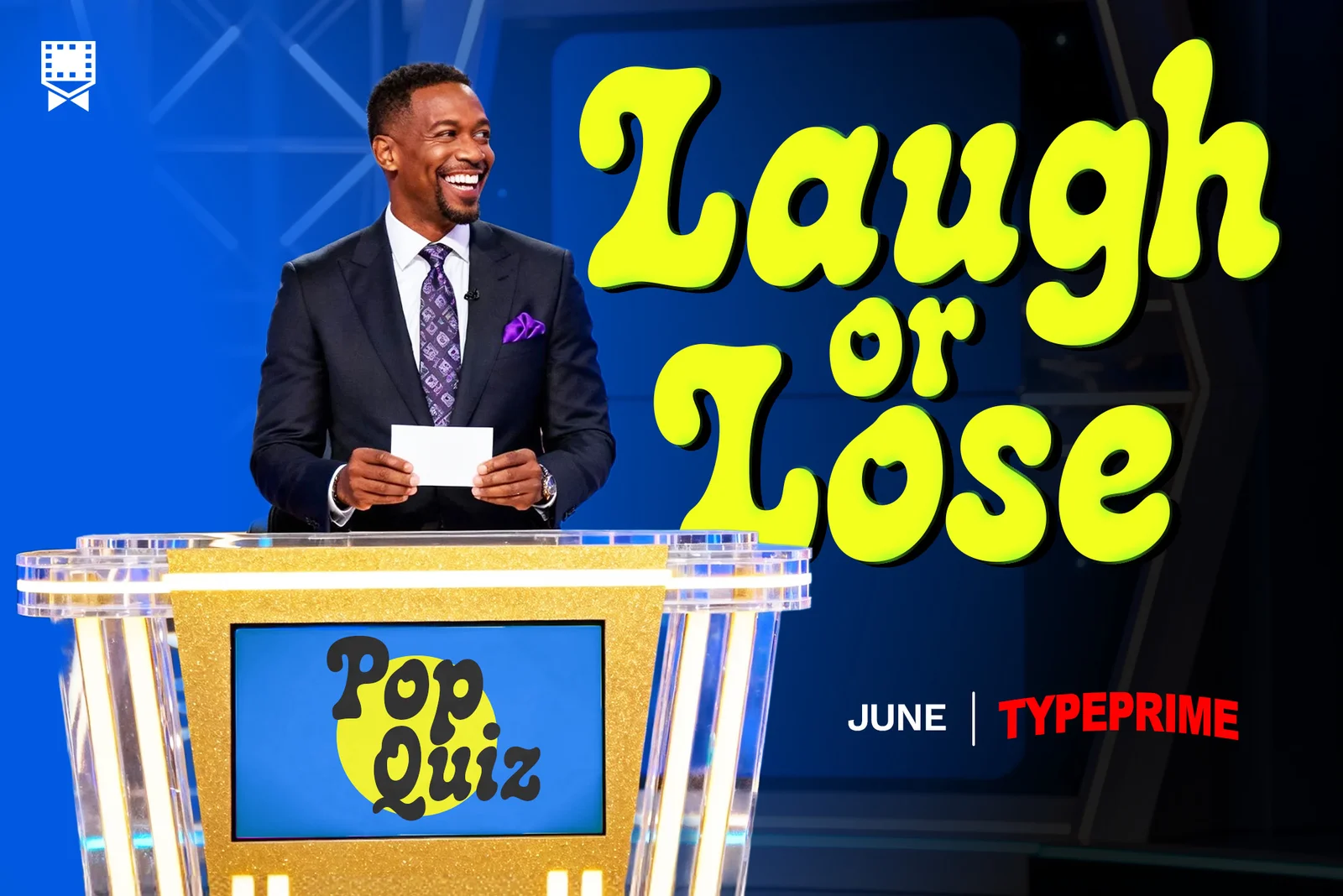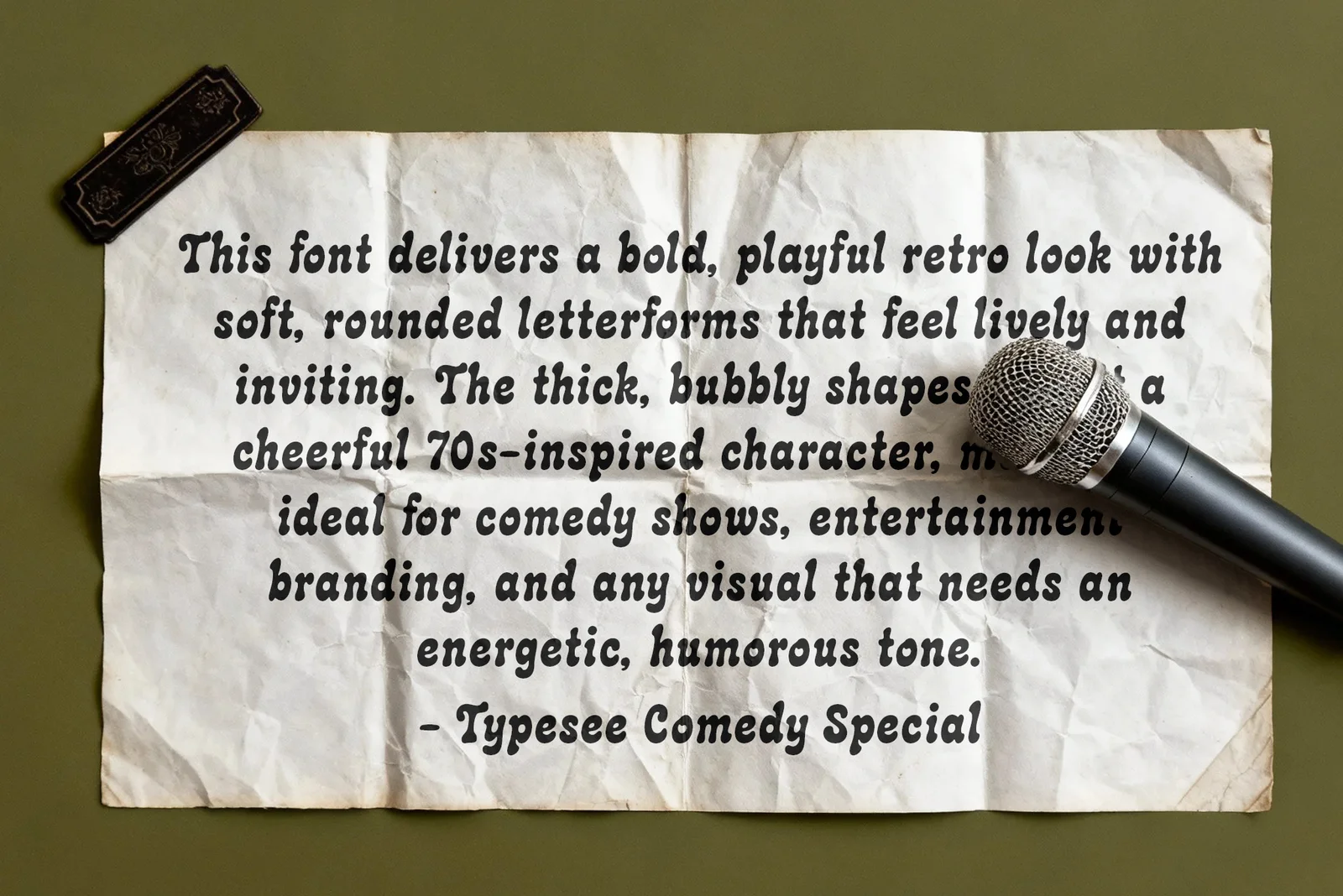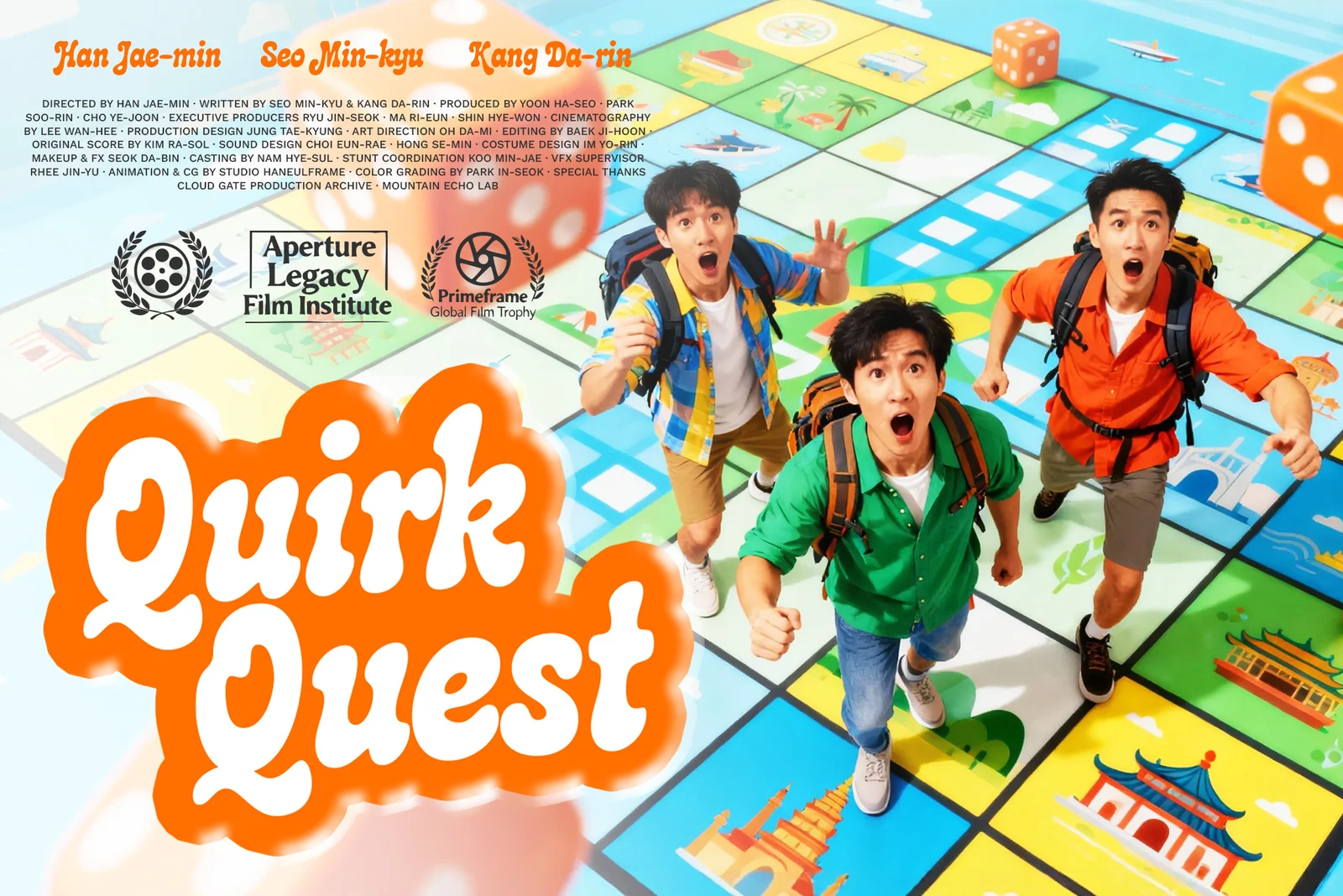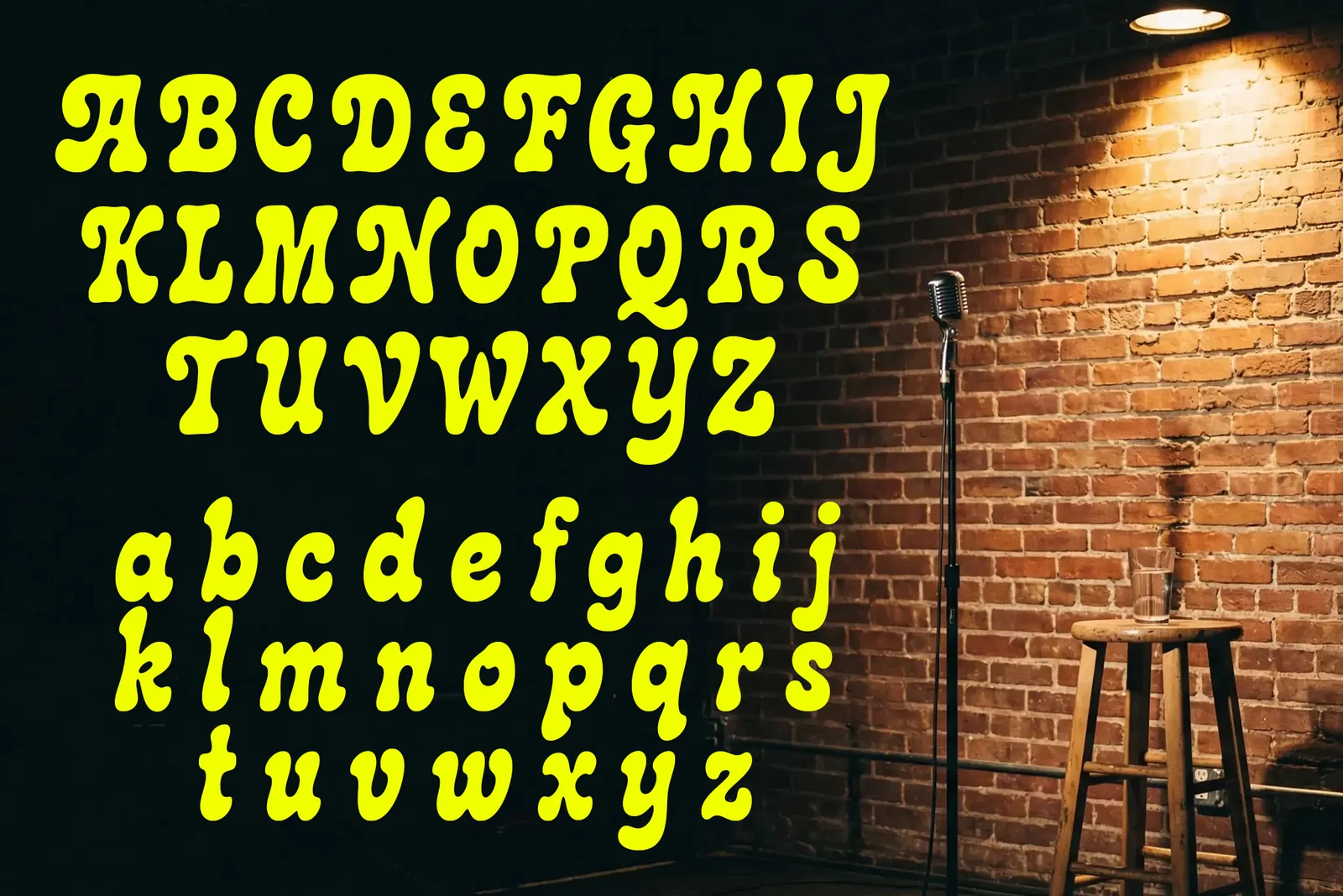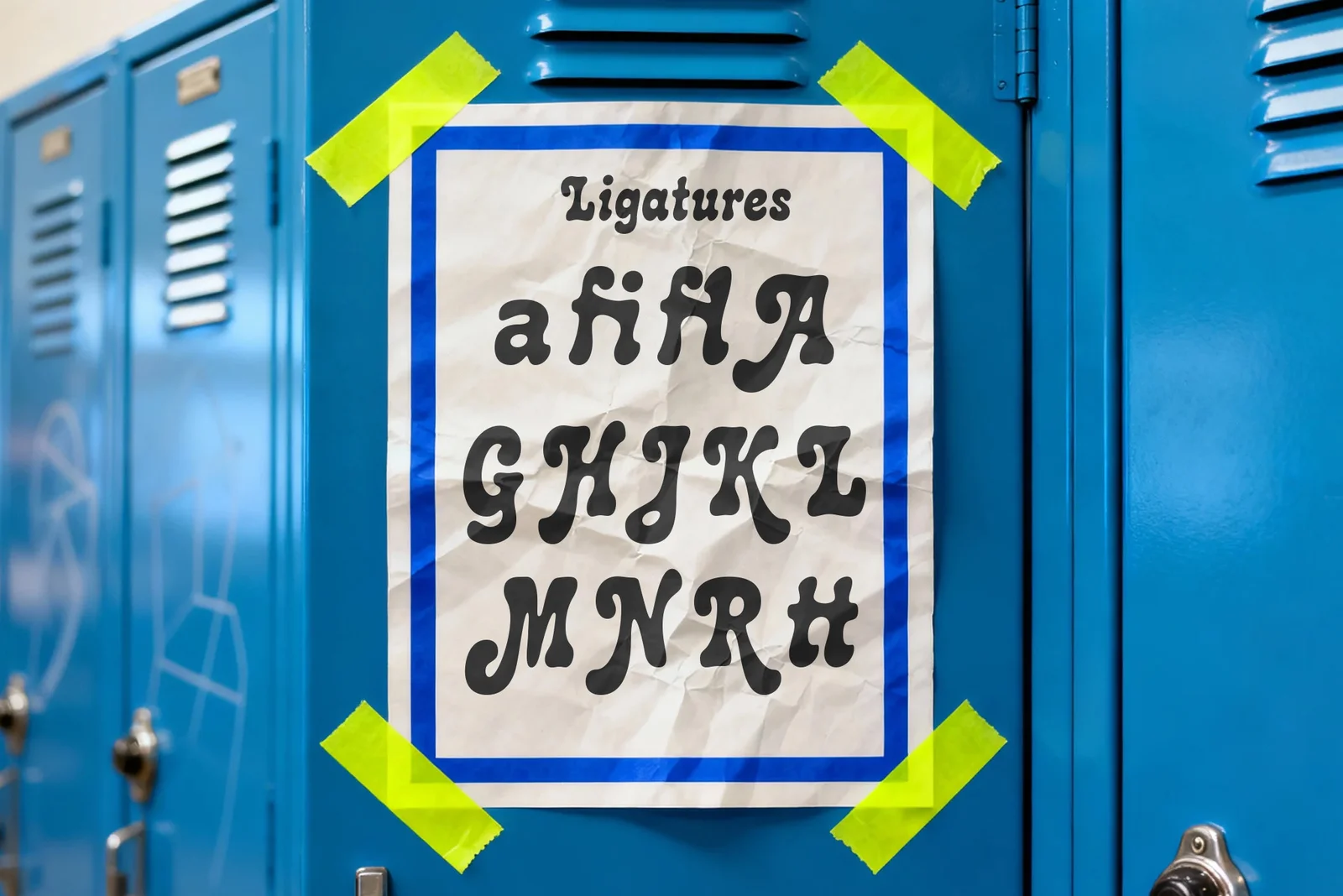
Late Laughs Font
Late Laughs is a playful retro display font with bubbly curves and vintage flair. It’s perfect for comedy posters, fun branding, and cheerful visuals, bringing personality and humor to projects.
The font features soft shapes, expressive curves, and includes uppercase, lowercase, and symbols, making it flexible for creative titles and quirky compositions. Its nostalgic yet modern charm makes it ideal for designers seeking a friendly and energetic display font.